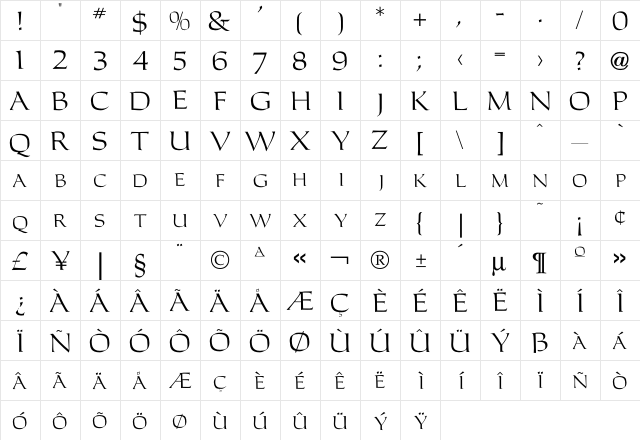
LHF Melissa Regular
| Foundry | Dave Smith for letterhead Fonts |
| Designer | Dave Smith for Letterhead Fonts |
Design Context for LHF Melissa Typeface
LHF Melissa takes a measured approach to typography — its balanced proportions and neutral character make it a reliable workhorse for both digital and print work.